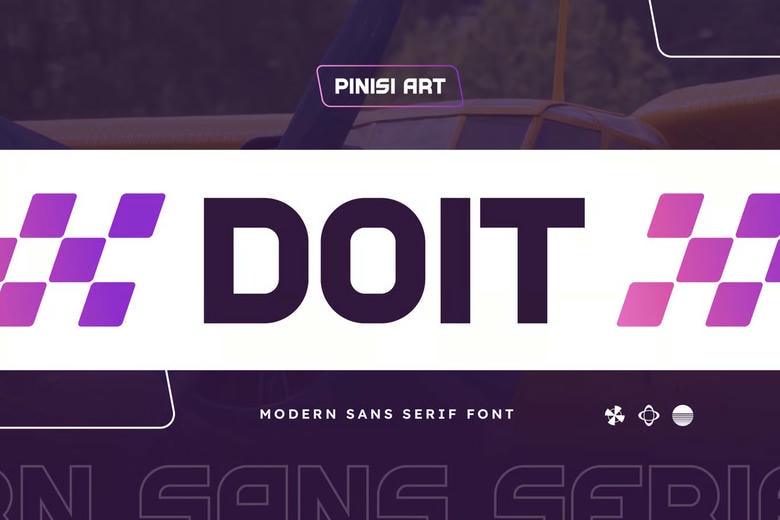
Doit Font
Doit is an ambitious geometric display typeface designed to appeal to creators that live fast, energetic, and accurate design. Every headline appears fast, powerful, and competitive, its square letterforms, tight spacing, and sharp terminals. Doit was developed with the modern sports design in mind and it embodies the excitement of movement – whether it is the skydiving posters or the racing titles.
This font is a synthesis of blocky design and futuristic proportion that is ideal in branding, esports content, and event design that must scream confidence and motion.
Doit is designed to the brands that move – literally. And this font enhances vibrancy and supremacy whether you are designing a snowboarding event banner, racing logo or sky high sports promo. Its adaptable geometrical rhythm is well adopted in motion pictures, car commercials, and game covers. It is popular among designers because it is memorable due to its readability and athletic visual tone that makes it hard to ignore.
Doit Sans Serif Font